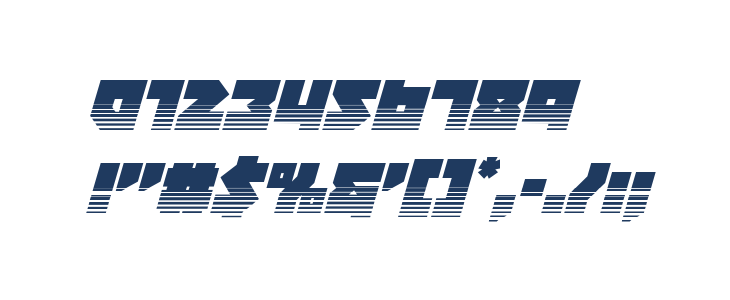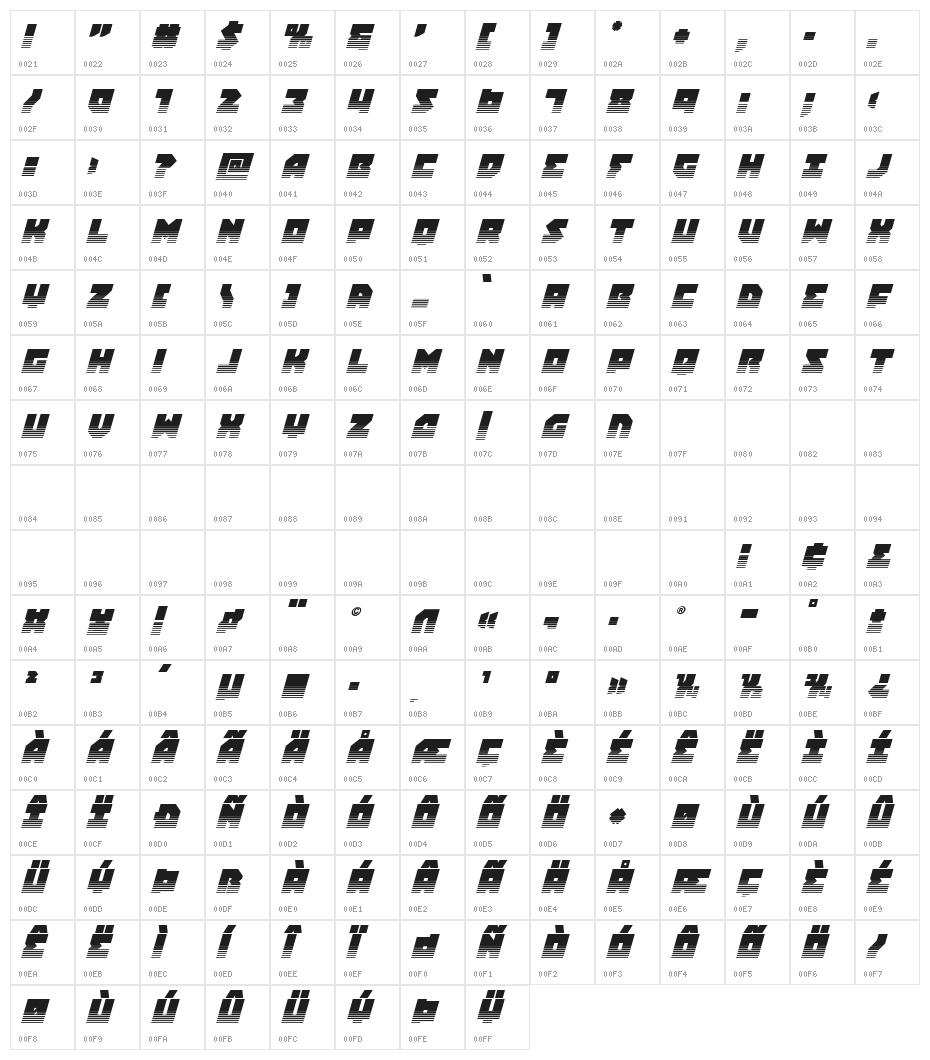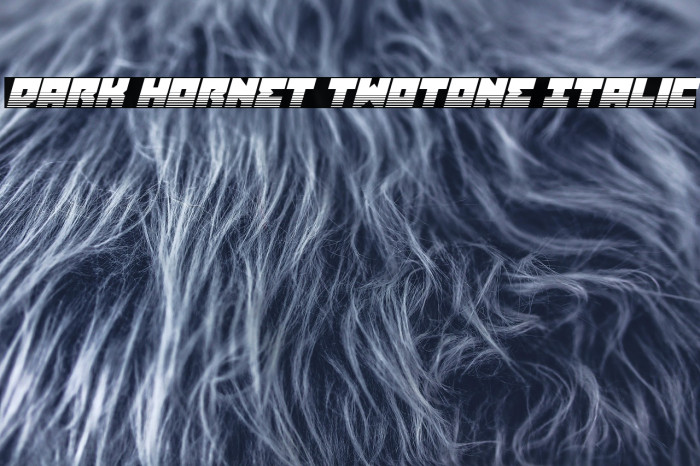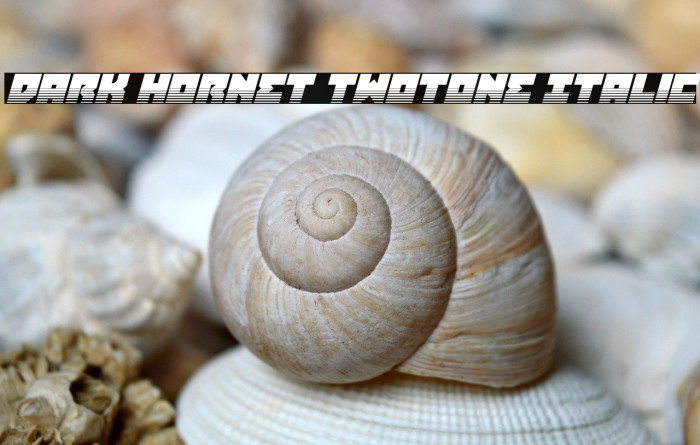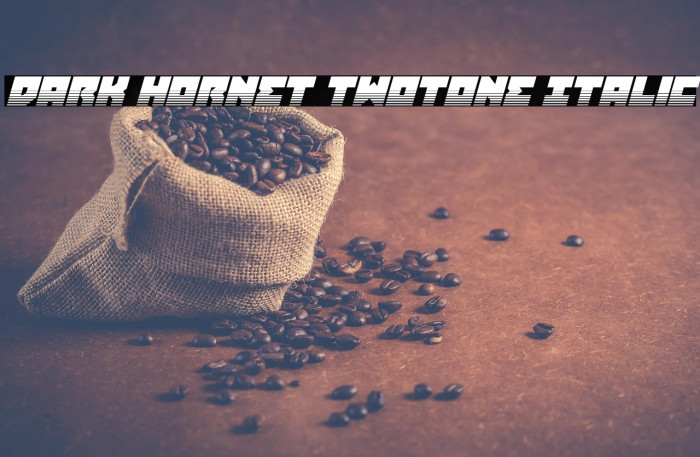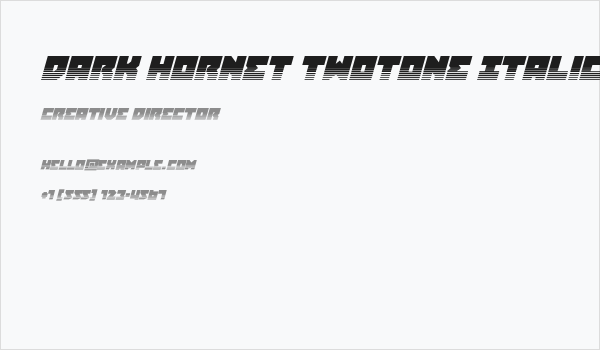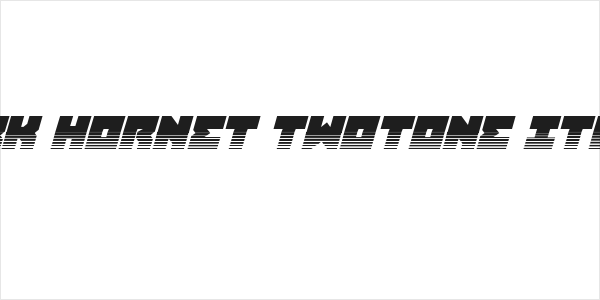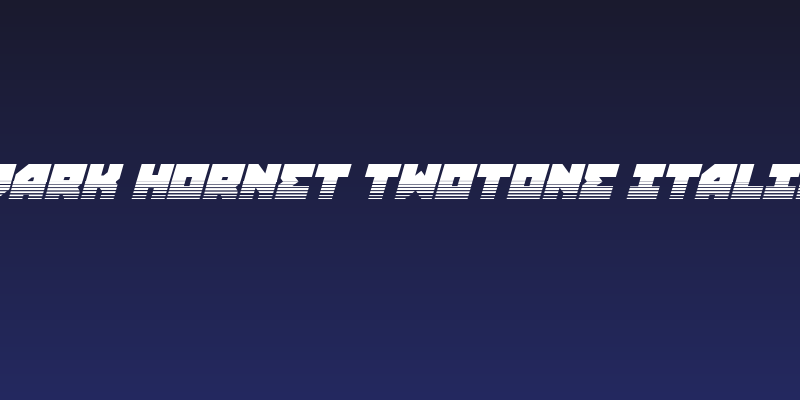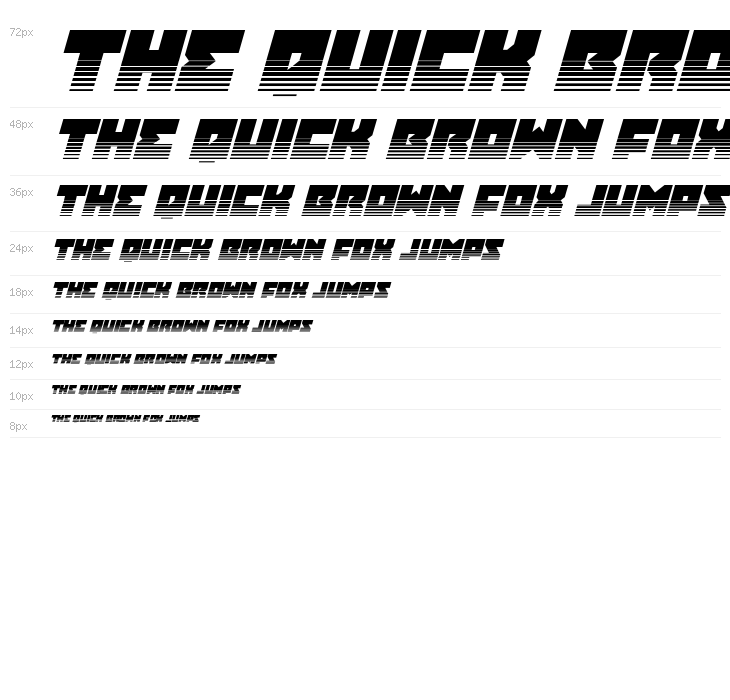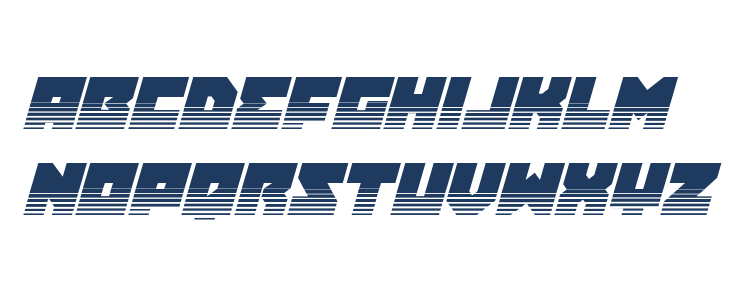
Dark Hornet Twotone Italic Font
Dark Hornet Twotone Italic Description
This font features a bold, dynamic design with a distinct two-tone effect, creating a sense of movement and energy. The characters are italicized, adding a forward-leaning stance that enhances its modern and futuristic appeal. The strokes are thick and consistent, with a high contrast between the solid black and the striped pattern, giving it a unique visual texture. The overall style is decorative and eye-catching, making it suitable for projects that require a strong visual impact. The character spacing is tight, which contributes to its compact and cohesive appearance.
| Overall Style | Modern, Futuristic |
| Proposed Projects | Ideal for sports branding, video game titles, futuristic posters, and dynamic logo designs. |